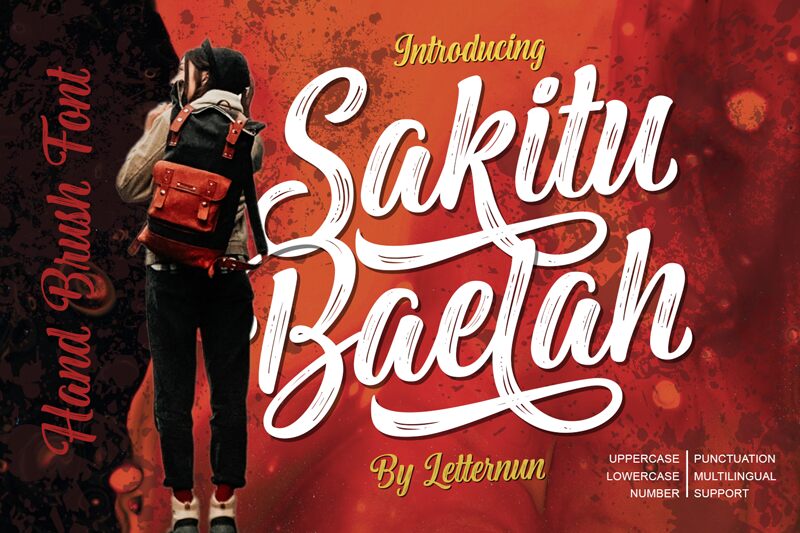
Sakitu Baelah
Sakitu Baelah font is designed by Letternun with impressive brushstrokes. This free handwritten font has a natural flow and dynamic feel, which makes it elegant enough to suit high-class projects. Its dark tones also add an extra element of depth, while its textured finish breaks up the design for better readability.
Use it in headings and titles for magazines, branding and packaging products like tea or cosmetics, posters and flyers for concerts or traumatic events awareness campaigns.